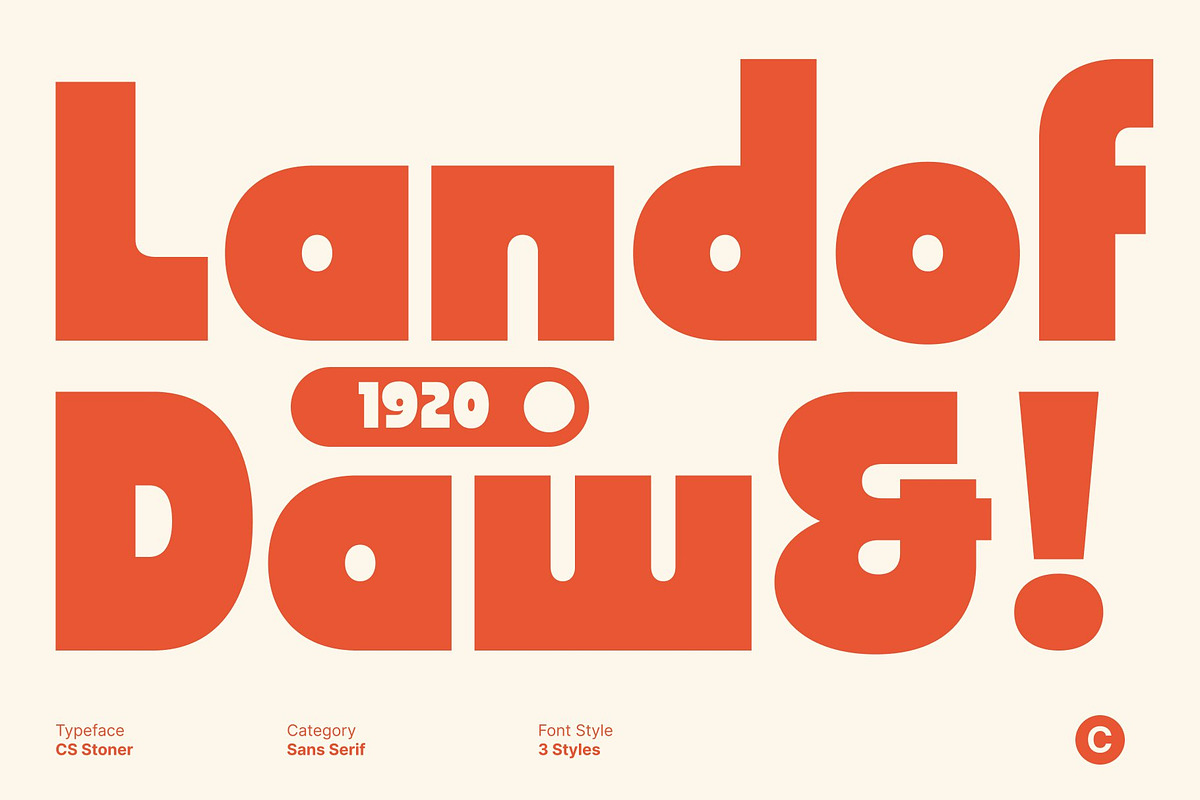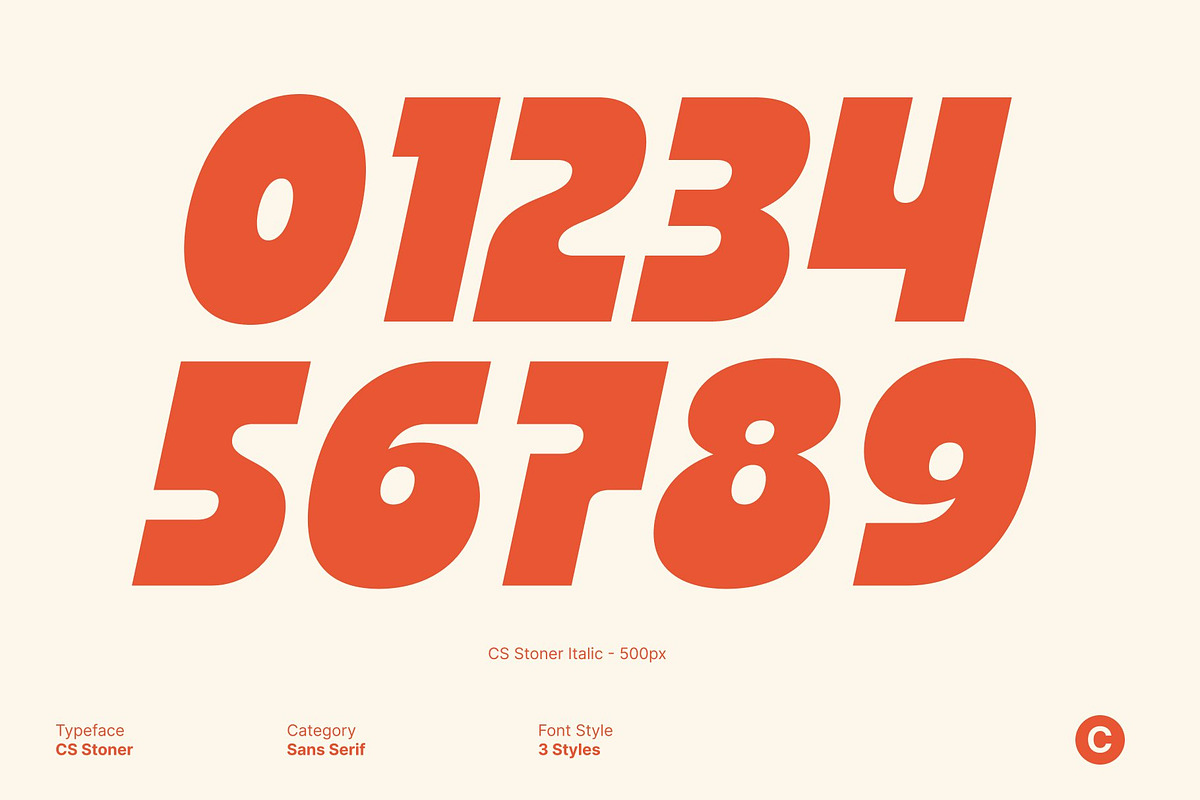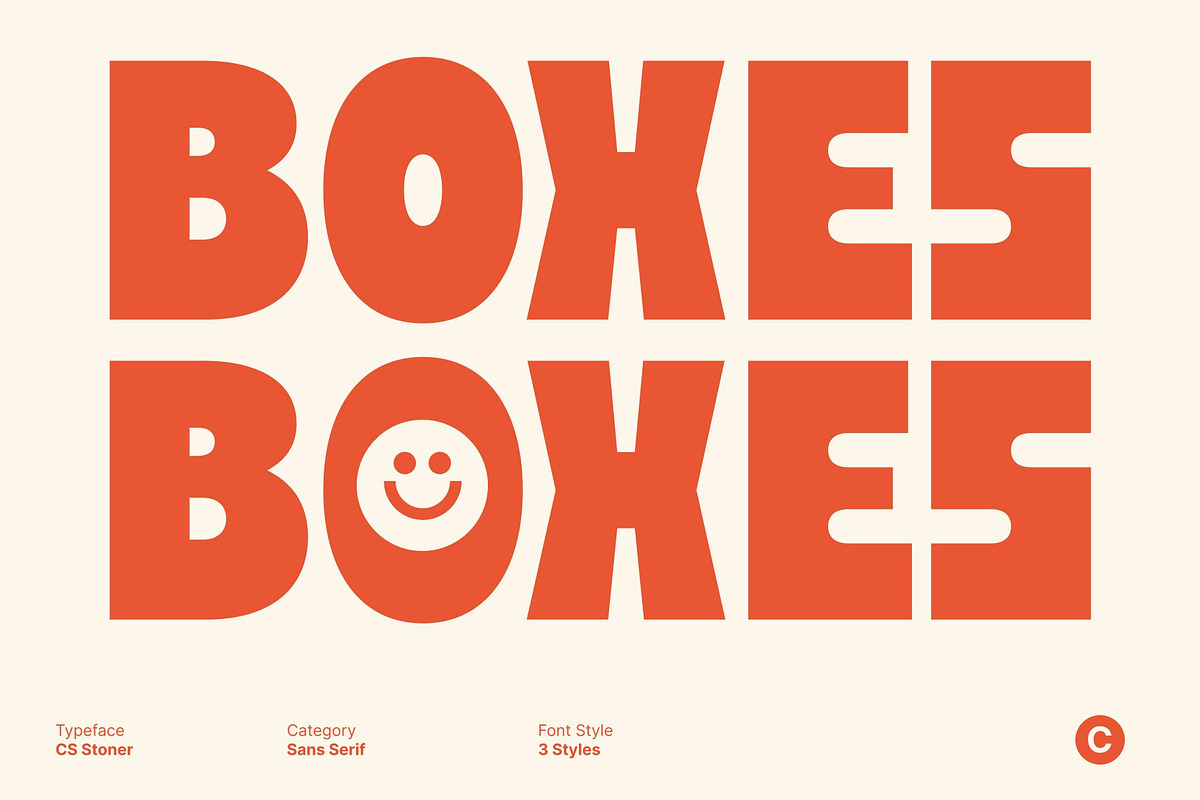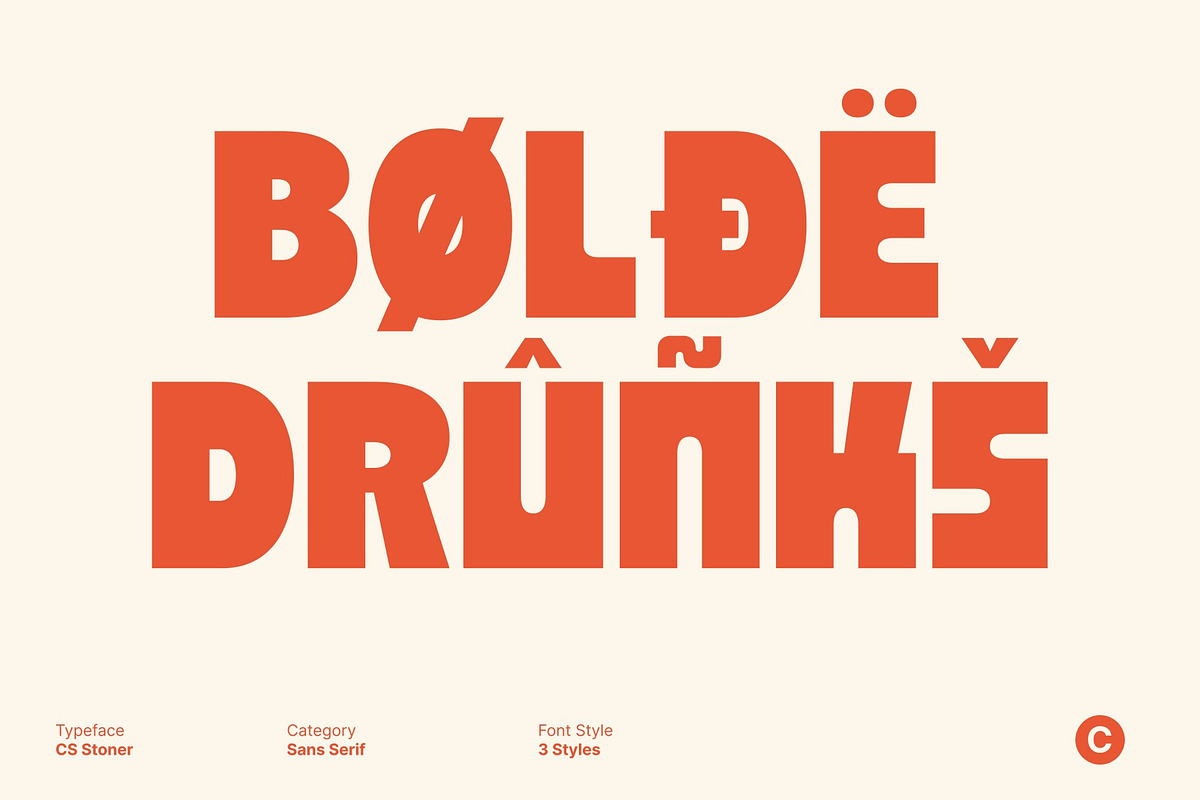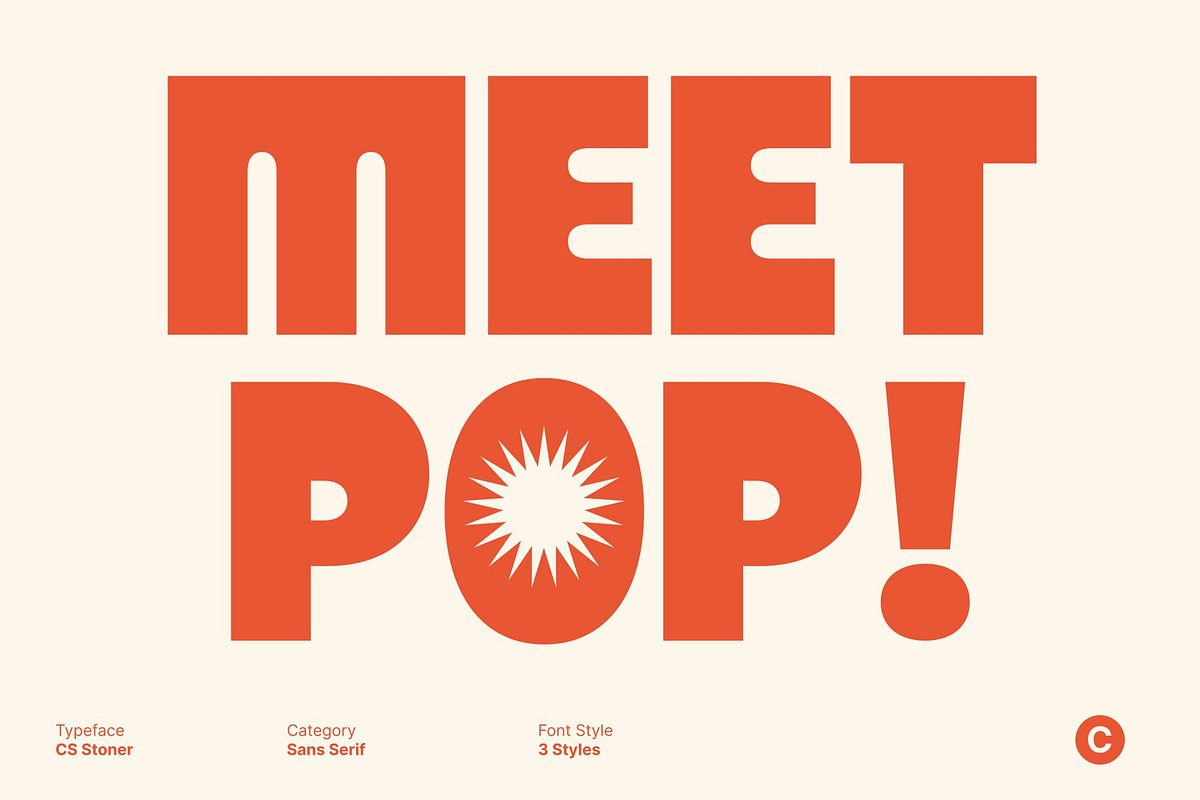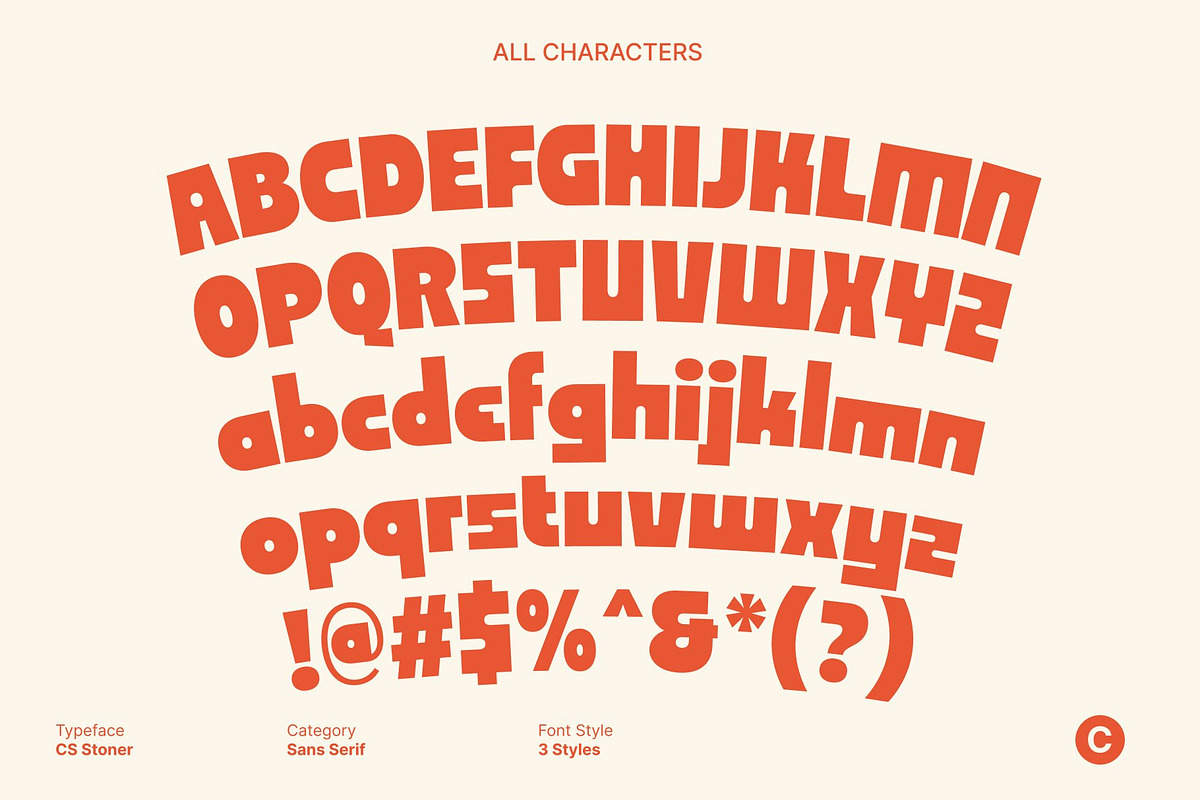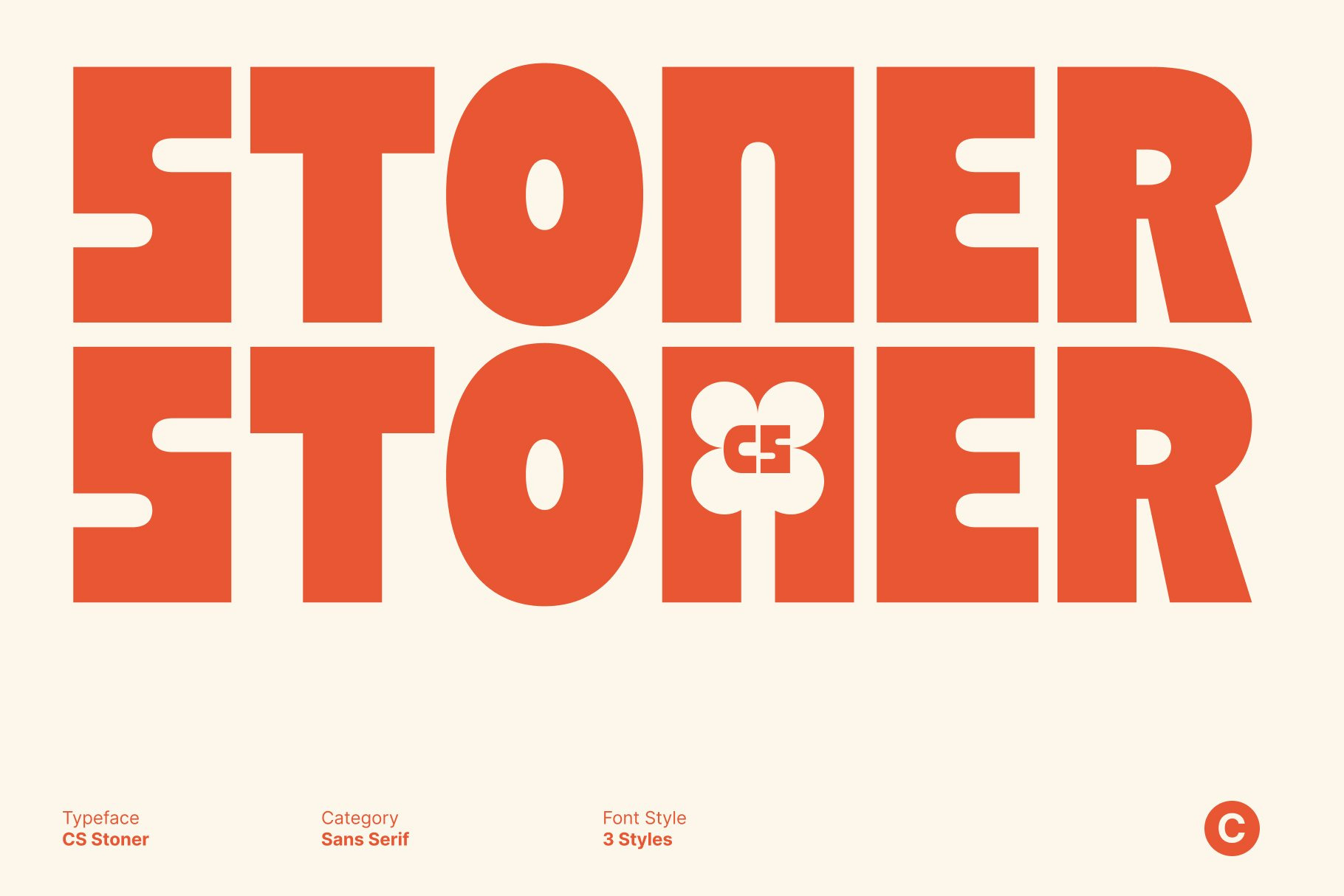
CS Stoner – Display Typeface
CS Stoner: Industrial Power with Geometric Precision
Bold Sans Serif with Geometric Influence This is a sans serif display font defined by bold, blocky letterforms and geometric inspiration. It merges strong industrial aesthetics with modern precision, creating a font that feels both rugged and refined perfect for designs that demand presence and clarity.
Powerful Shapes for Maximum Impact Each character in this font is crafted with sharp edges and structured geometry, ensuring a bold visual statement. Its sturdy proportions and confident shapes make it ideal for headlines, posters, and titles that need to command attention with authority and strength.
Modern Edge for Creative Expression This font balances its industrial backbone with a clean, modern finish, allowing it to adapt seamlessly to both professional and artistic uses. From band merchandise and streetwear branding to editorial layouts and event posters, it delivers a bold and assertive visual rhythm.
Versatile and Memorable Typography Designed for impactful communication, this font enhances any project that seeks to leave a strong impression. Its combination of geometric precision and industrial character ensures your message stands out boldly, confidently, and unmistakably.